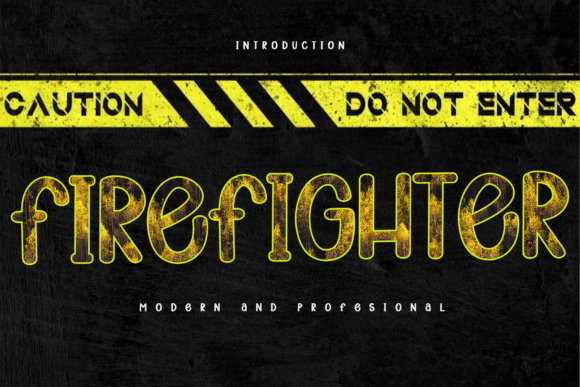
Firefighter Font: The Sweet and Friendly Handwritten Font for Your Design Needs
Are you looking for a font that can add a lovely touch to your designs? Look no further than the Firefighter font. This sweet and friendly handwritten font is perfect for creating beautiful wedding invitations, cards, and other designs that require a fresh and casual look.
What is Firefighter Font?
Firefighter font is a type of handwritten font that is designed to look like it was written with a pen or pencil. It has a fresh and casual feel to it, making it perfect for designs that require a personal touch. The font is characterized by its flowing lines, rounded edges, and sweet curves, which give it a friendly and approachable look.
Features of Firefighter Font
The Firefighter font has several features that make it an ideal choice for designers. Some of its key features include:
- Handwritten look: The font has a genuine handwritten look that makes it perfect for designs that require a personal touch.
- Fresh and casual: The font has a fresh and casual feel to it, making it perfect for designs that require a relaxed look.
- Sweet and friendly: The font has a sweet and friendly look that makes it perfect for designs that require a warm and approachable feel.
- Easy to read: The font is easy to read, making it perfect for designs that require a clear and concise message.
Uses of Firefighter Font
The Firefighter font can be used for a variety of design projects, including:
- Wedding invitations: The font is perfect for creating beautiful wedding invitations that require a personal touch.
- Cards: The font is perfect for creating greeting cards, birthday cards, and other types of cards that require a warm and friendly look.
- Social media graphics: The font is perfect for creating social media graphics that require a fresh and casual look.
- Logos: The font can be used to create logos that require a sweet and friendly look.
Benefits of Using Firefighter Font
There are several benefits to using the Firefighter font for your design projects. Some of the benefits include:
- Unique look: The font has a unique look that sets it apart from other fonts.
- Versatile: The font can be used for a variety of design projects, from wedding invitations to social media graphics.
Tips for Using Firefighter Font
Here are some tips for using the Firefighter font:
- Use it for headings: The font is perfect for headings and titles.
- Use it for body text: The font can also be used for body text, but it’s best to use a larger size to ensure readability.
- Pair it with other fonts: The font can be paired with other fonts to create a unique look.
- Experiment with colors: The font can be used with a variety of colors to create a unique look.
The Firefighter font is a sweet and friendly handwritten font that is perfect for designers who want to create beautiful designs. Its fresh and casual look makes it ideal for wedding invitations, cards, and other designs that require a personal touch. With its ease of use, versatility, and cost-effectiveness, the Firefighter font is a great addition to any designer’s toolkit.